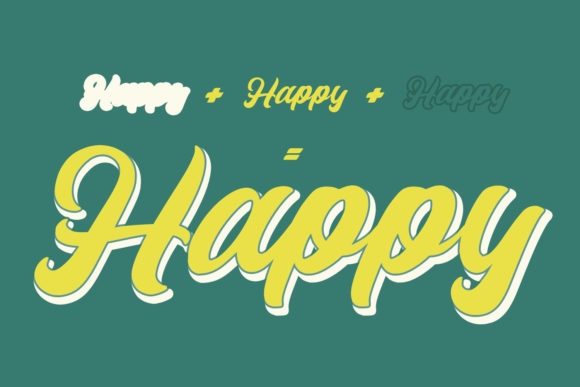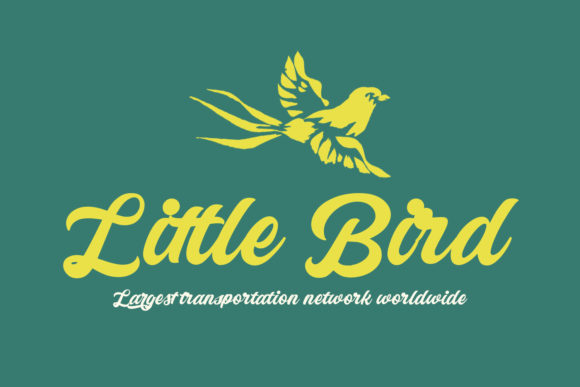
Garleco Font
db-ku.com - Script & Handwritten -- Garleco is a retro and bold handwritten font that is crafted with great care for maximum results. It will add elegance and class to any of your design projects. This font can be used to write various kinds of products according to the aspect of each need.